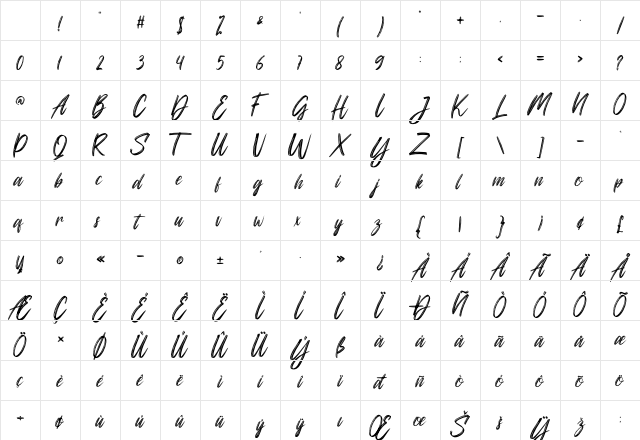
Kafflass Regular Free Font
Kafflass Regular
Designer: Skiiller studio - M irfan mahmudin
Design Context for Kafflass
Kafflass is a composed and adaptable typeface that performs quietly and consistently across a wide range of design contexts.